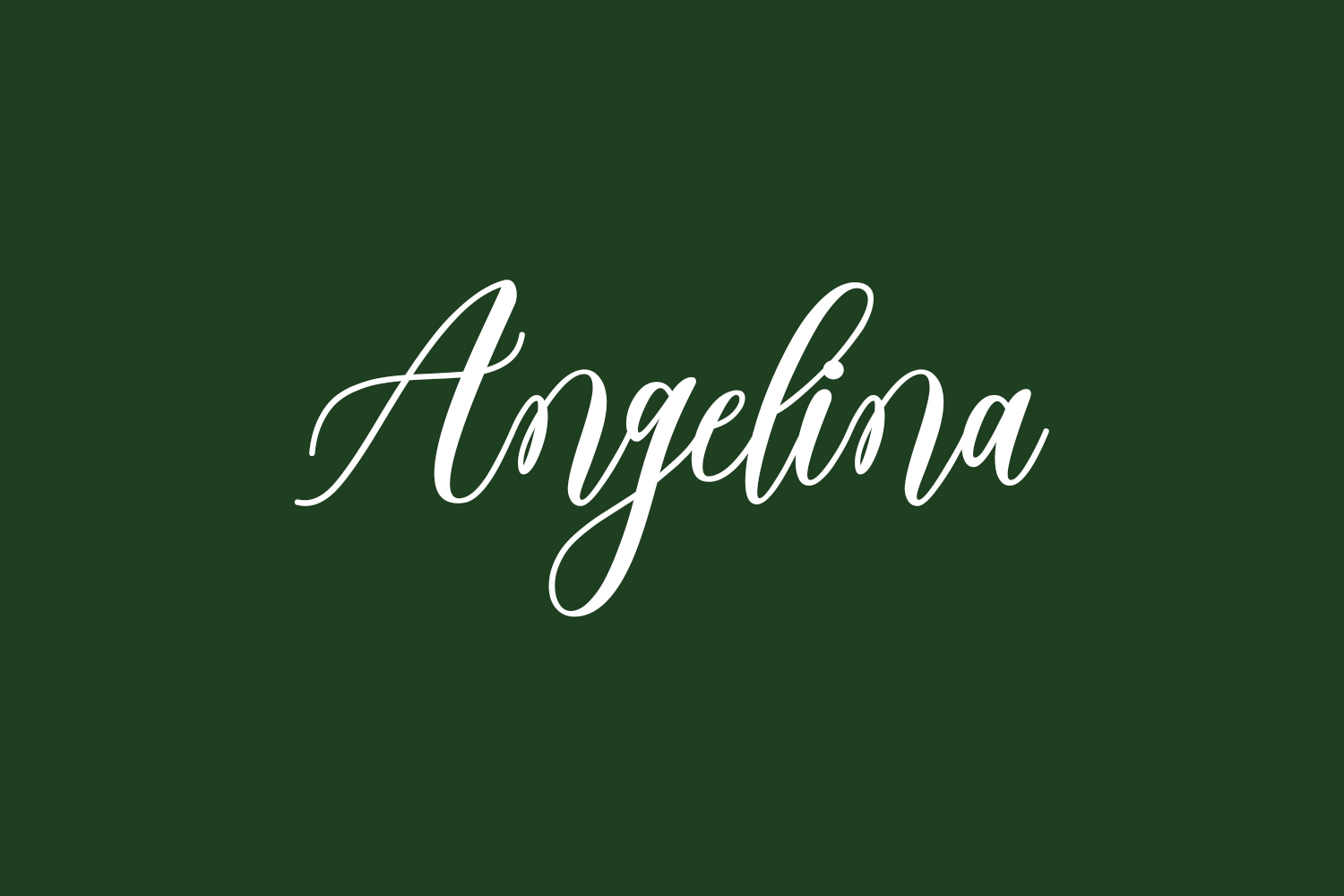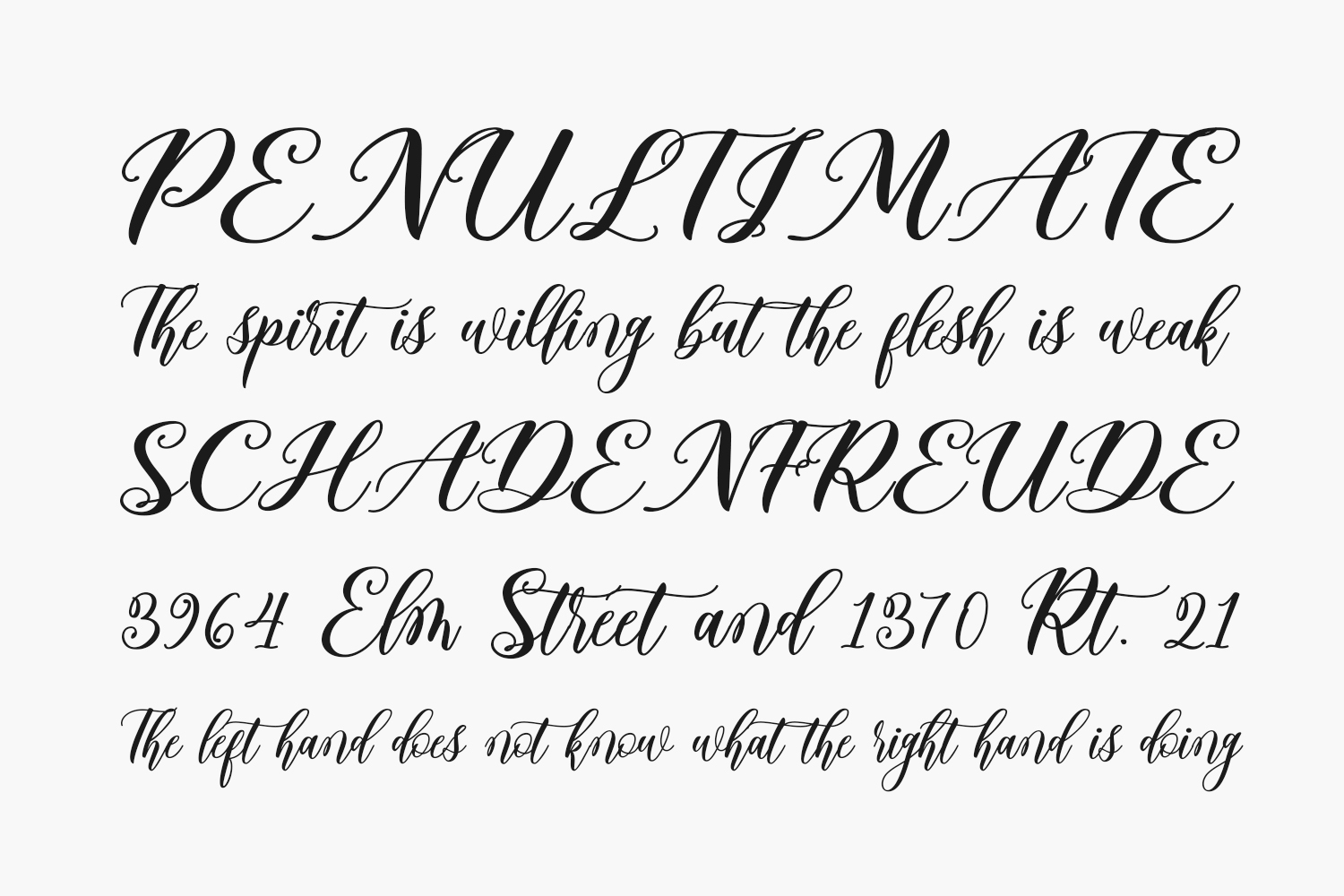
Angelina Free Font is a beautiful and light handwritten font, displaying a stunning impact. It will add a luxury spark to any design project that you wish to create. Angelina Free Font was designed by Letternun and is free for personal use only. Please purchase the full version for commercial use.